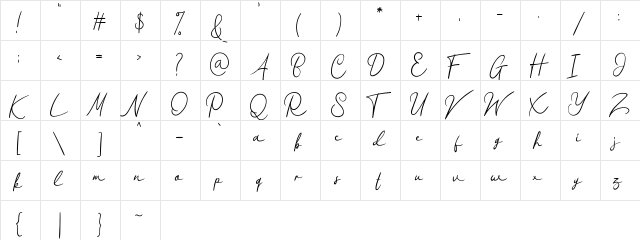
Peach Brown Regular
| Foundry | Hallotudio |
| Designer | Hallotudio |
Design Context for Peach Brown Typeface
Peach Brown is a composed and adaptable typeface that performs quietly and consistently across a wide range of design contexts.